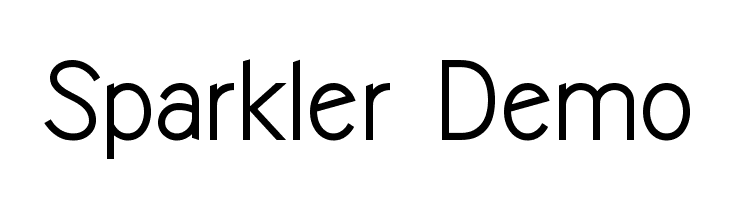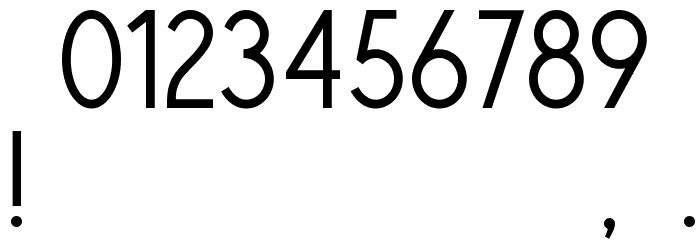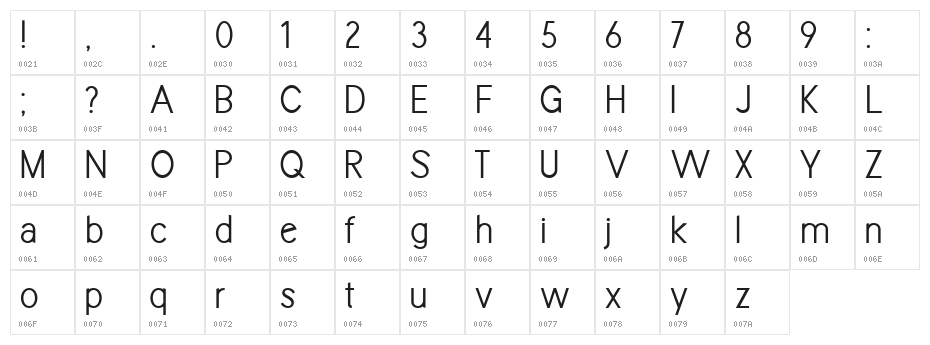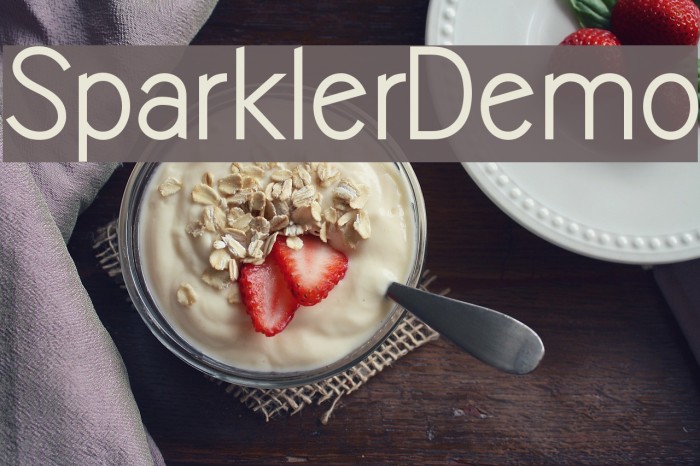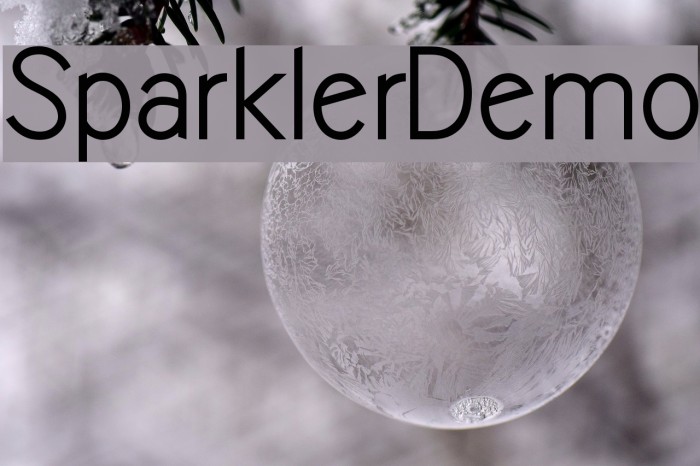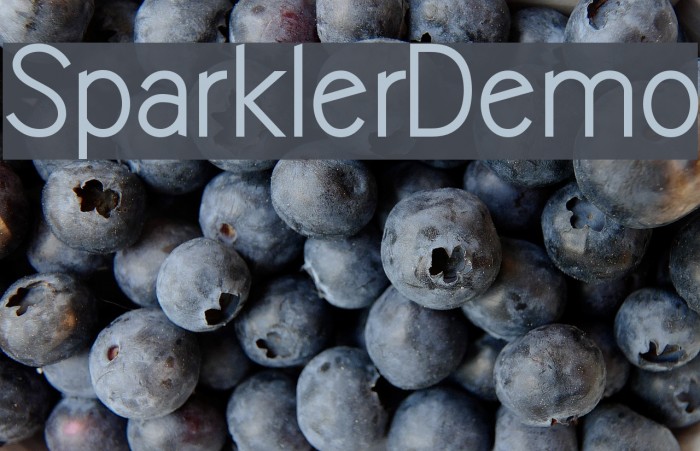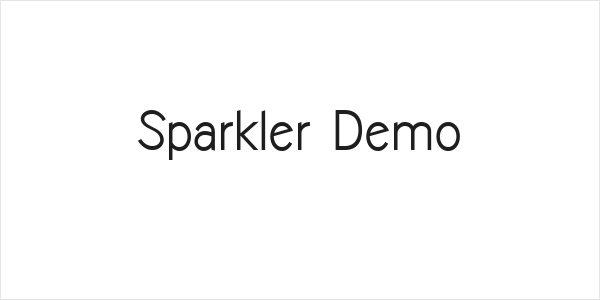
Sparkler-Demo Font
Sparkler-Demo Description
This font features a clean and modern sans-serif design, characterized by its simplicity and clarity. The letters are evenly spaced with a consistent stroke width, providing a balanced and harmonious appearance. The uppercase and lowercase letters maintain a uniform height, enhancing readability. The numerals are straightforward and align well with the overall style, making them suitable for various applications. The special characters are designed with the same minimalist approach, ensuring they blend seamlessly with the rest of the typeface.
Use CaseHeadlines, Body text, Logos
Proposed ProjectsIdeal for branding, web design, corporate materials, and editorial layouts due to its clarity and modern appeal.